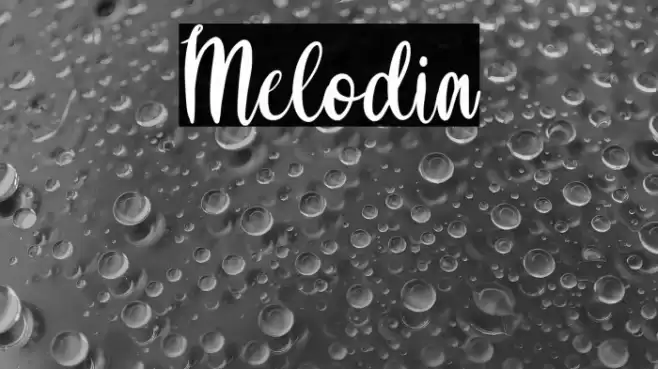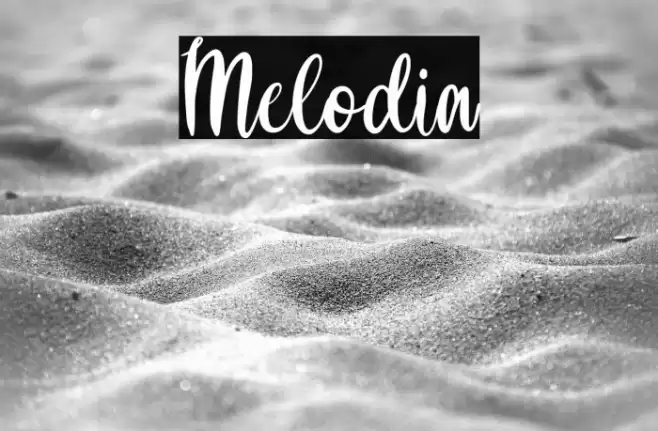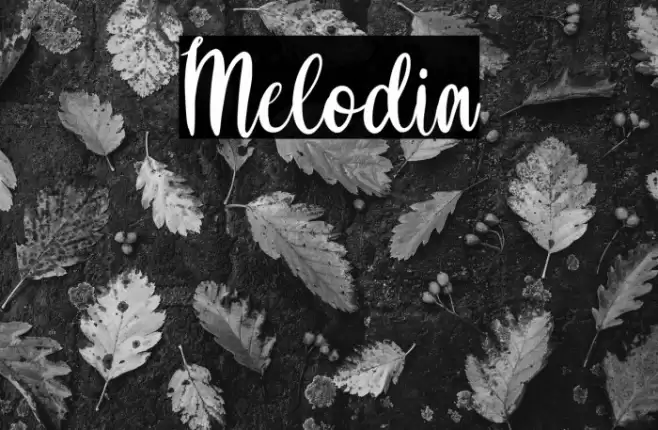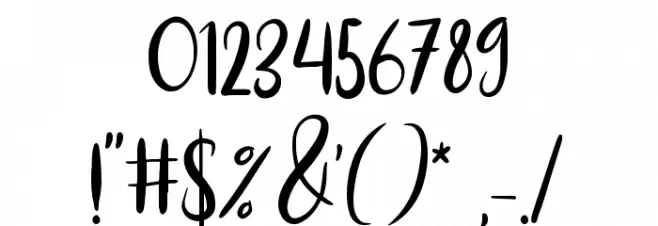
Melodia Font
Melodia Description
This font features a flowing, cursive style with elegant loops and swashes, giving it a sophisticated and artistic appearance. The uppercase letters are bold and expressive, while the lowercase letters maintain a consistent, fluid motion. Numbers and special characters are designed to complement the overall aesthetic, ensuring a cohesive look across all text. The font's playful yet refined nature makes it suitable for a variety of creative projects. Its script-like quality adds a personal touch, making it ideal for invitations, greeting cards, and branding materials.
A flowing, cursive font with elegant loops and swashes, perfect for artistic projects from Uncategorized fonts.
- Proposed Projects: Ideal for wedding invitations, greeting cards, logos, and branding materials.
- Use Case: Logos, Invitations, Greeting Cards